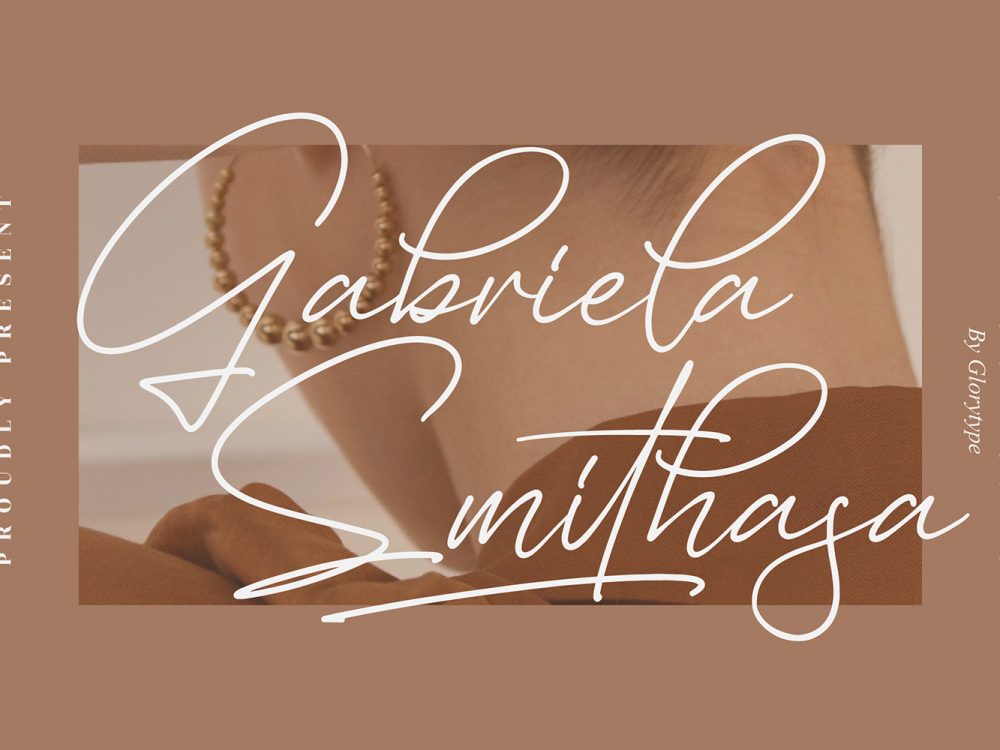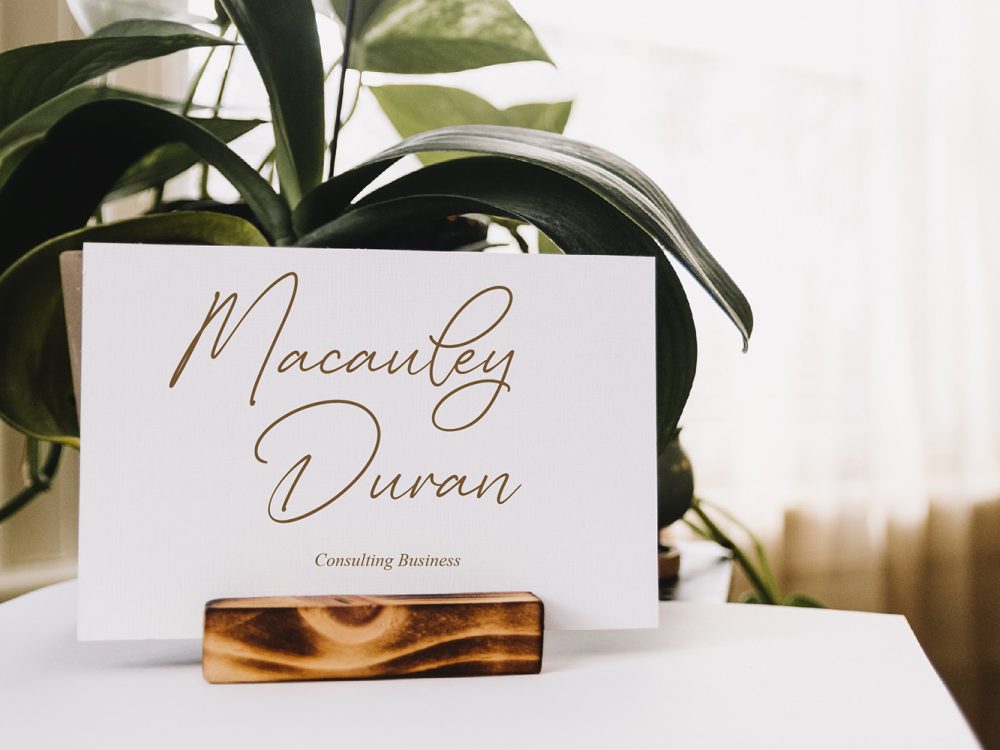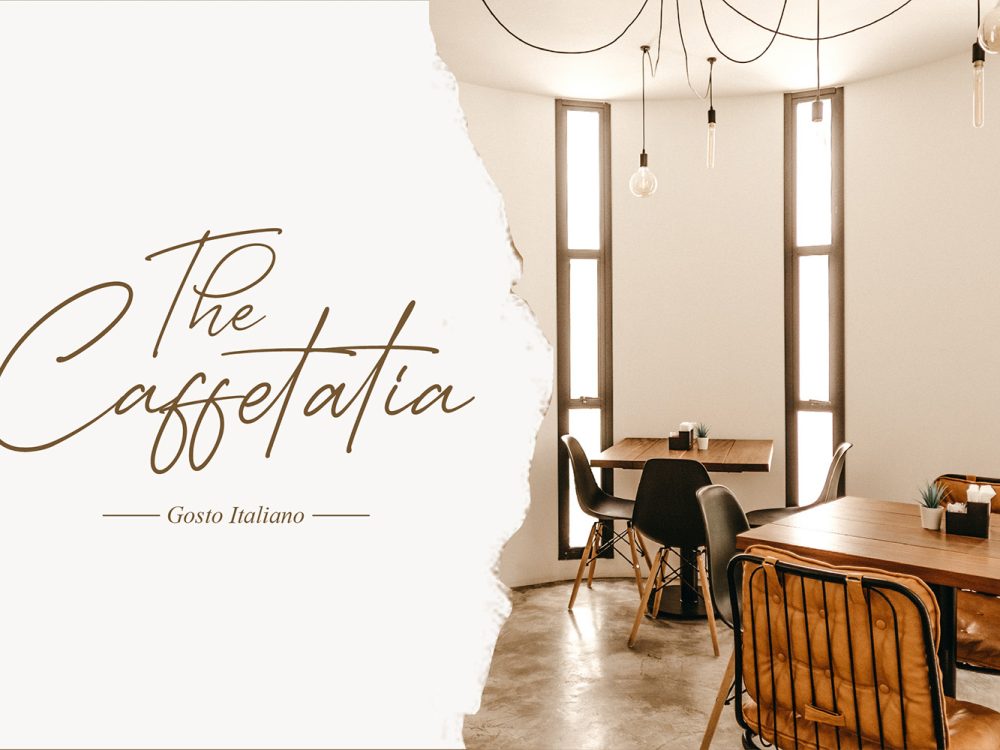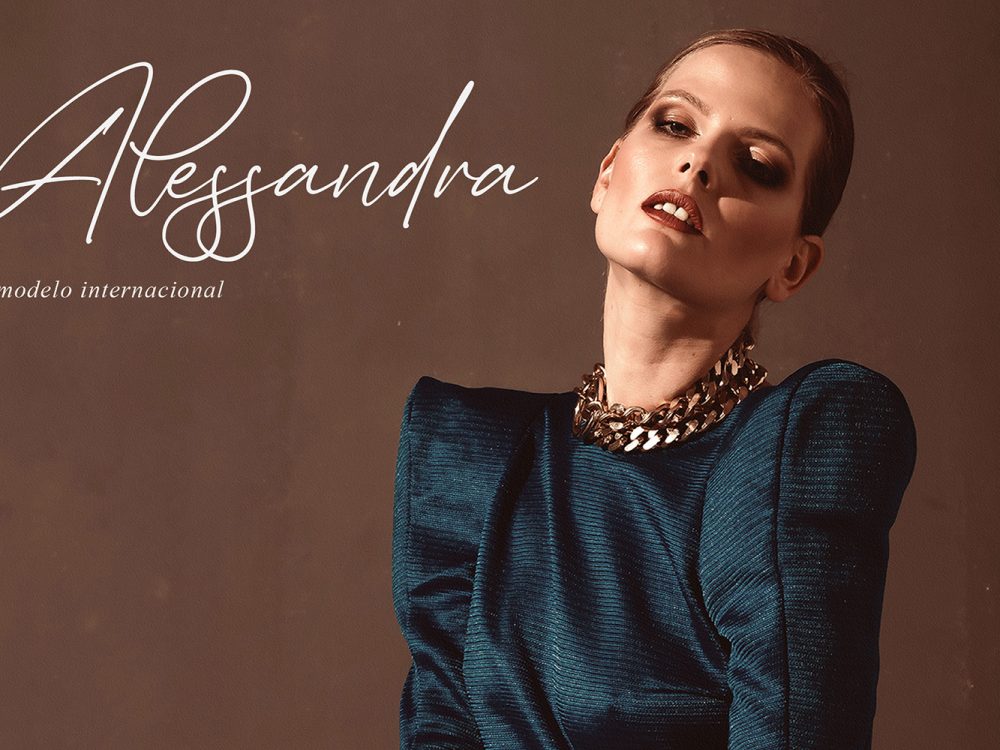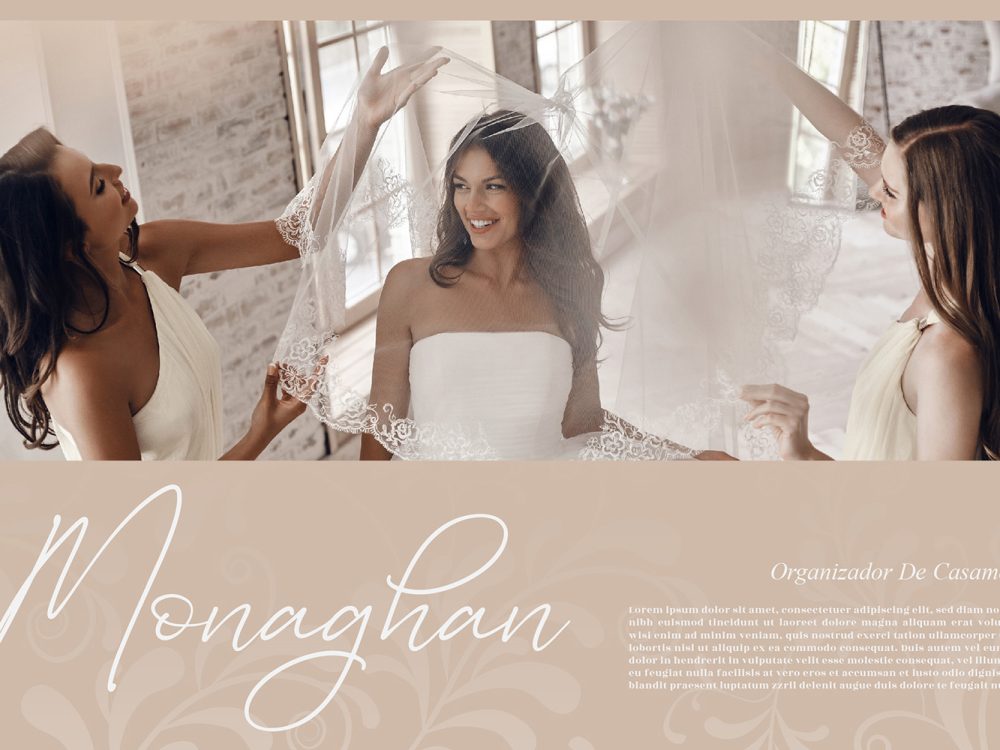
Gabriela Smithasa Free Font
Introducing Gabriela Smithasa Free Font, a charming and affectionate calligraphy typeface adorned with characters that gracefully sway along the baseline. Infuse a touch of opulent elegance into your design projects with this font, creating an atmosphere of luxury that resonates beautifully. If you like it don’t forget to check out the full version.